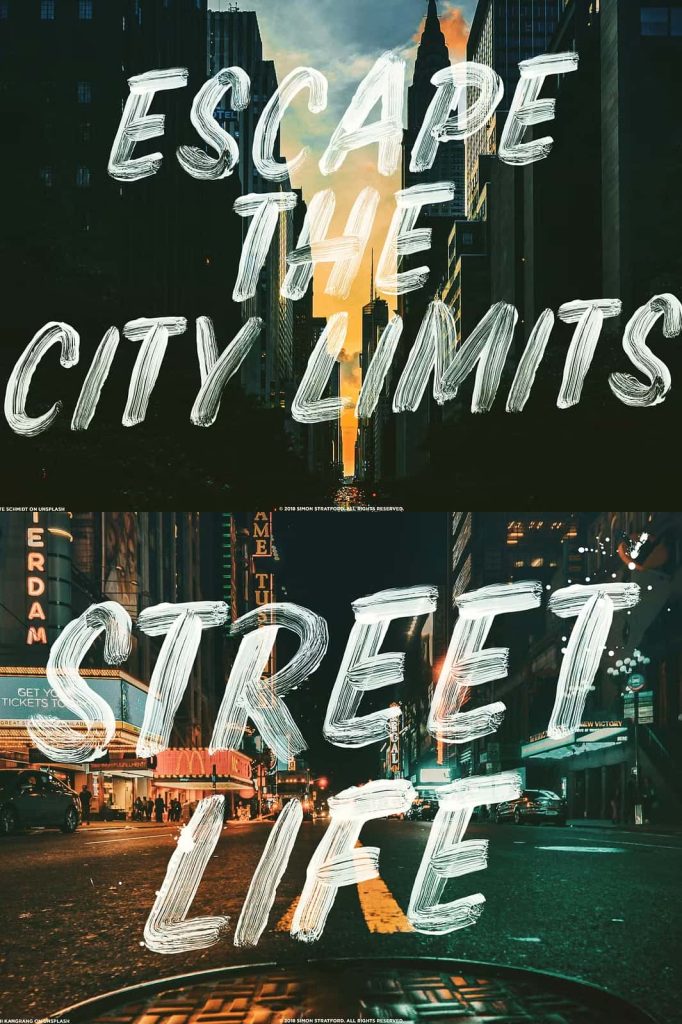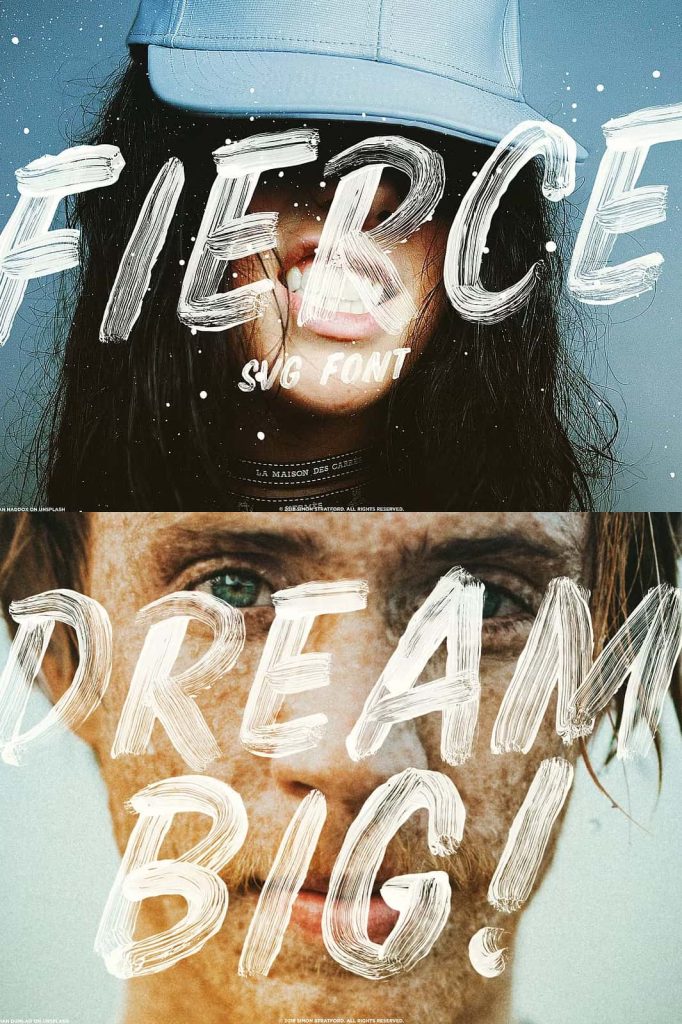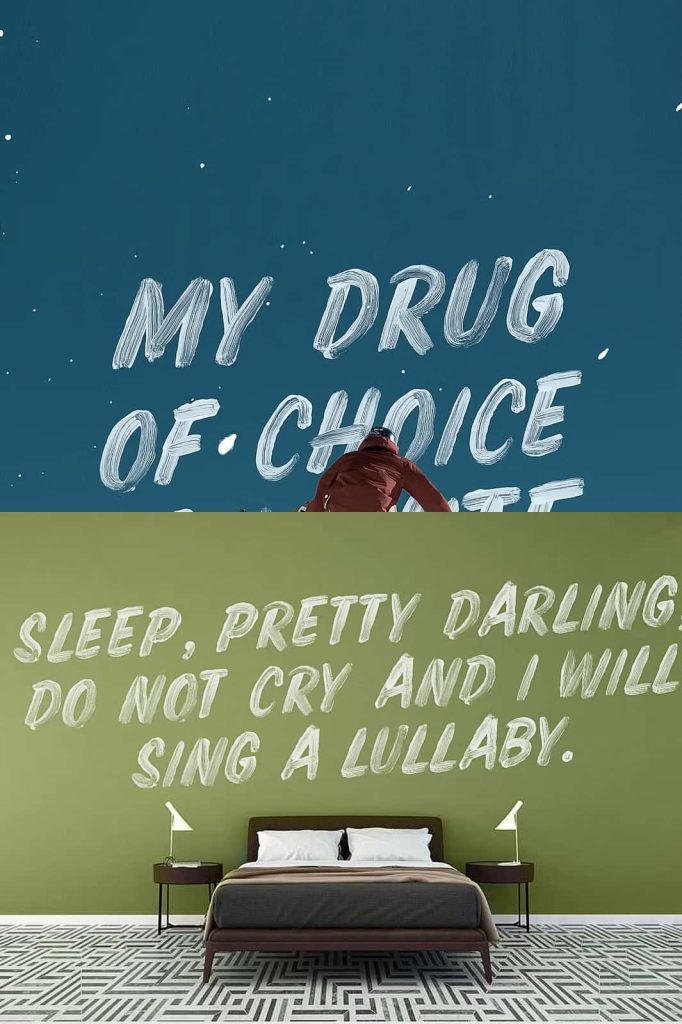
Fierce Brush Script Font
Fierce is a bold brush script font designed to capture raw energy and authentic artistic texture. Created using real acrylic paint on transparency film, this OpenType-SVG typeface preserves every natural stroke, splatter, and subtle imperfection. It delivers a level of detail that traditional vector fonts simply cannot replicate.
Fierce transforms typography into expressive artwork. The visible dry brush effect adds depth and character, allowing designers to create compositions that feel handcrafted and powerful. Whether you design bold branding, promotional posters, or social media graphics, Fierce commands attention with intensity and movement.
Authentic Acrylic Brush Texture
Fierce stands apart because it begins with real paint. Instead of simulating brush strokes digitally, this font captures genuine acrylic textures directly from transparency film. The result feels organic, dynamic, and full of life.
Every letter reveals detailed brush fibers and layered pigment. You can see the pressure shifts, the fading edges, and the natural flow of paint across each stroke. This authenticity creates typography that feels personal and expressive rather than mechanical.
Dry Brush Detail You Can See
The dry brush appearance gives Fierce its signature look. Each character displays subtle gaps and textured transitions where the paint thins across the surface. These details add dimension and realism to your designs.
Designers can use this feature to create bold headlines with tactile presence. The texture enhances large-scale compositions such as posters, album covers, and banners, where every stroke becomes part of the visual narrative.
OpenType-SVG for Rich Visual Depth
As an OpenType-SVG font, Fierce preserves full-color and high-detail textures within each glyph. Unlike standard vector typefaces that rely on flat shapes, this format maintains the depth and richness of real paint.
This technology allows you to incorporate authentic brush lettering directly into your workflow. You can scale text while retaining its natural texture and visual intensity. Fierce brings handcrafted lettering into modern digital design without losing its artistic integrity.
Perfect for Bold Branding
Fierce brush script font empowers brands that want to project confidence and attitude. Use it for logos, merchandise, apparel graphics, and promotional materials that require strong visual identity. Its bold strokes communicate strength and creativity instantly.
Pair it with clean sans serif fonts to balance structure and expression. The contrast highlights the raw texture of Fierce while maintaining professional clarity.
Ideal for Posters, Album Art, and Creative Campaigns
Fierce excels in projects that demand emotion and movement. Music album covers, event posters, festival branding, and advertising campaigns benefit from its energetic presence. The visible brush texture creates drama and amplifies visual storytelling.
Designers can experiment with scale, layering, and background textures to enhance its impact. The font thrives in large headlines and statement phrases where its expressive strokes take center stage.
Add Personality to Digital Content
In digital spaces, Fierce maintains its powerful texture across social media graphics, website headers, and promotional banners. Its bold brush style stands out in crowded feeds and captures attention quickly.
Use it to introduce urgency, passion, or creativity into your message. The font’s handcrafted quality builds emotional connection and authenticity.
Versatile Across Print and Merchandise
Fierce performs exceptionally well in print applications. It enhances t-shirt designs, packaging labels, stickers, and signage with tactile realism. The detailed brush strokes translate beautifully onto physical surfaces, reinforcing the handcrafted aesthetic.
Designers can also apply special printing techniques such as embossing or textured finishes to amplify its painted appearance. This versatility makes Fierce a valuable addition to any creative toolkit.
Why Choose Fierce Brush Script Font?
- Created with real acrylic paint for authentic texture
- OpenType-SVG format preserves detailed brush strokes
- Bold and expressive dry brush effect
- Perfect for branding, posters, album art, and merchandise
- Adds raw energy and handcrafted character to typography
Fierce brush script font gives designers the power to move beyond flat typography and embrace expressive, paint-driven detail. Its bold strokes and organic texture create unforgettable visual impact across print and digital platforms. Choose Fierce to inject strength, authenticity, and artistic energy into your next creative project.